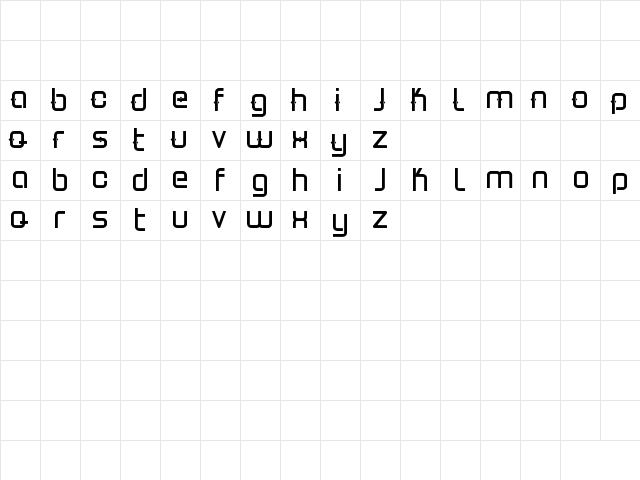
estro1 Regular
Design Context for estro1 Typeface
estro1 offers clean, dependable letterforms without strong stylistic allegiance, making it a practical choice for designers who need flexibility.